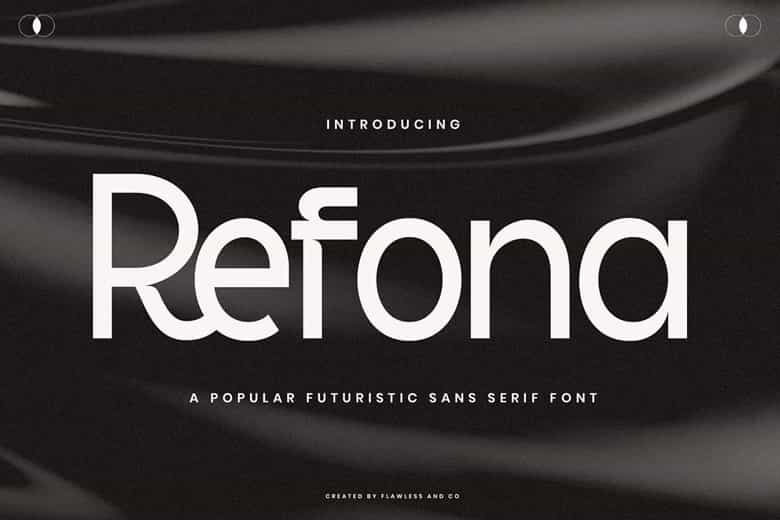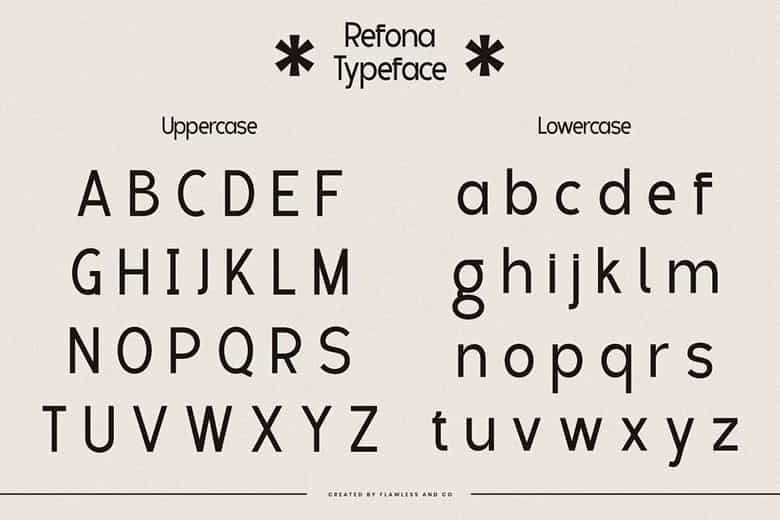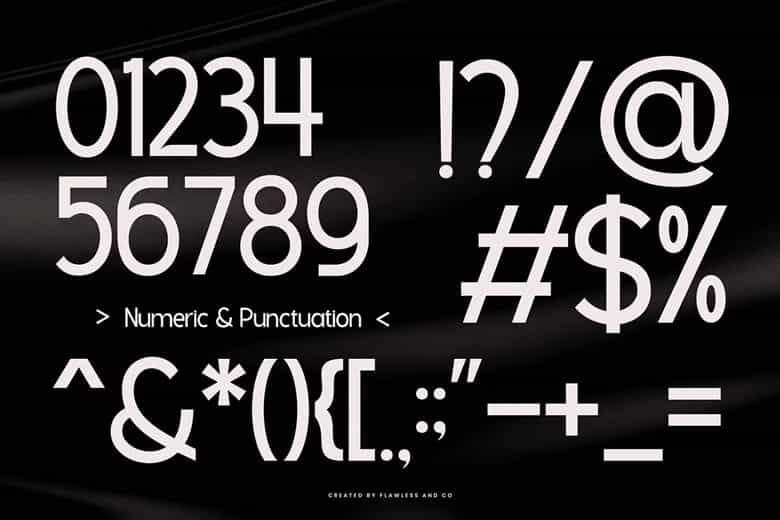
Refona is an unique sans serif typeface that connects simple lines with a progressive style. Refona’s clean and basic style, along with its geometric shapes, look great in both tech websites and modern projects. Through its simplicity and modernity, Refona looks great on websites, paper documents and on packaging.